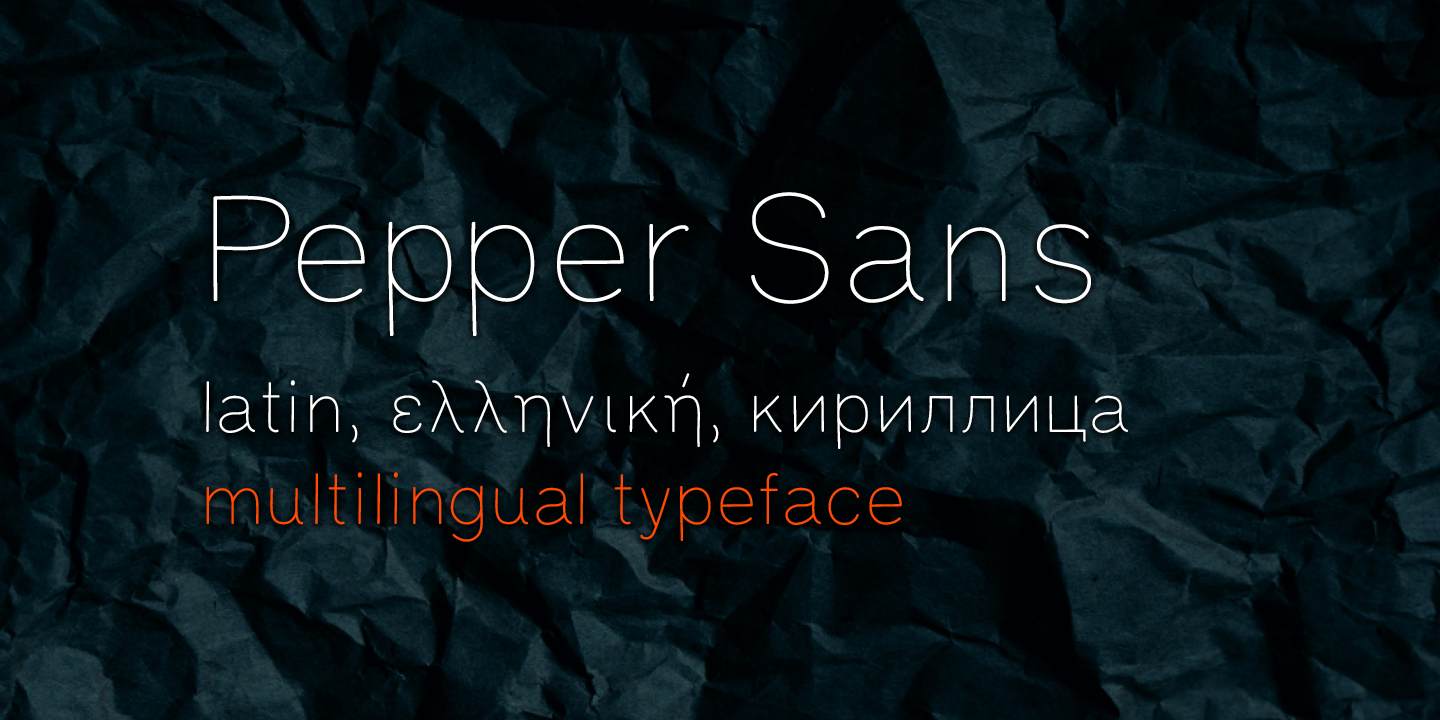
Pepper Sans Font excels in spicy restaurant branding, hot sauce packaging designs, culinary blog headers, Mexican food marketing, fiery advertising campaigns, bold startup logos, energetic social media graphics, vibrant product labels, zesty promotional materials, and dynamic web interfaces. Its spicy character makes it perfect for projects requiring heated energy and bold flavor that adds excitement and intensity to visual communications.
What makes Pepper Sans Font exciting is its dynamic ability to infuse typography with the bold heat and vibrant energy of spicy peppers through clean sans-serif letterforms that pack a punch while maintaining exceptional readability. The font features sharp, crisp edges with energetic proportions that convey intensity and excitement while ensuring clear communication for hot-blooded marketing. Its spicy character transforms ordinary text into expressions of fiery passion that ignite viewer interest and add sizzle to any design.
The Pepper Sans Font family includes Regular, Bold, Light, Hot, Spicy, Fiery, and Zesty variations. Each style preserves the font's peppery essence while offering different levels of heat intensity and spicy weight for creating authentic flavor-packed graphics. The comprehensive character set includes spicy symbols, hot ornaments, fiery decorations, and zesty glyphs essential for genuine culinary and energetic typography projects.
Spicy food brands and energetic businesses consistently choose Pepper Sans Font Free Download for projects demanding authentic hot typography solutions. The font's fiery character instantly establishes spicy credibility while ensuring clear communication across heated marketing channels. Its versatility spans from subtle spicy touches to bold statements that celebrate the transformative power of heat and the universal appeal of bold flavors and exciting experiences.
Whether you're developing spicy brand identities, creating hot marketing materials, or designing fiery communications, Pepper Sans Font provides the perfect combination of spicy authenticity and contemporary functionality. The font's boldly crafted letterforms ensure genuine pepper character while maintaining excellent performance across various culinary applications and energetic business communications.
The fiery heritage of Pepper Sans Font makes it exceptional for creating heated connections with audiences who crave excitement and bold experiences. Its spicy precision and energetic appeal work seamlessly across traditional culinary materials and modern digital flavor platforms. The font performs dynamically in both large-scale spicy displays and intimate hot communications.
Turn up the heat with Pepper Sans Font and discover how authentic spicy typography can enhance your energetic projects with genuine fiery appeal and bold sophistication. This remarkable typeface combines pepper tradition with contemporary functionality, making it indispensable for brands celebrating the excitement of bold flavors and the energizing power of spicy experiences.